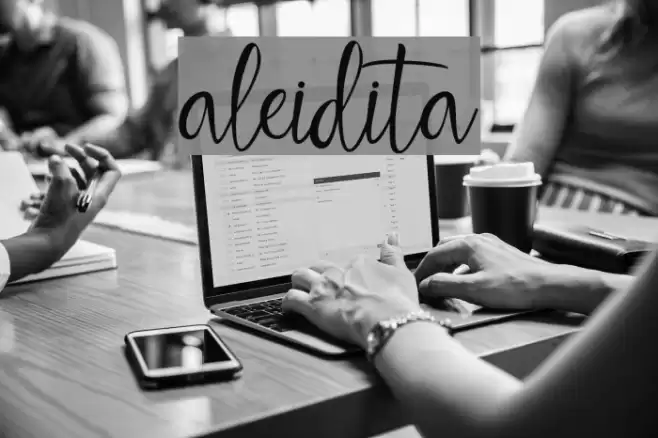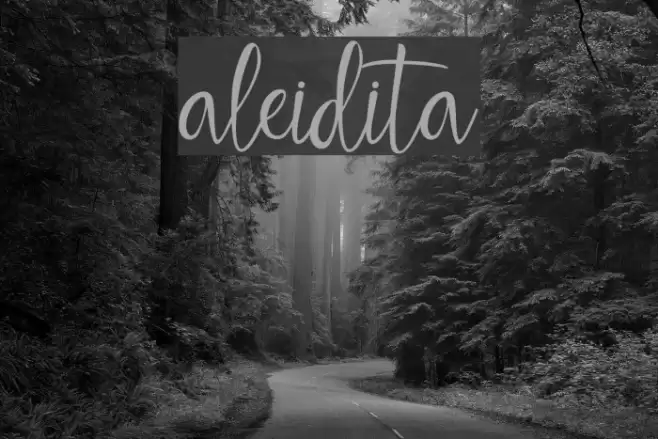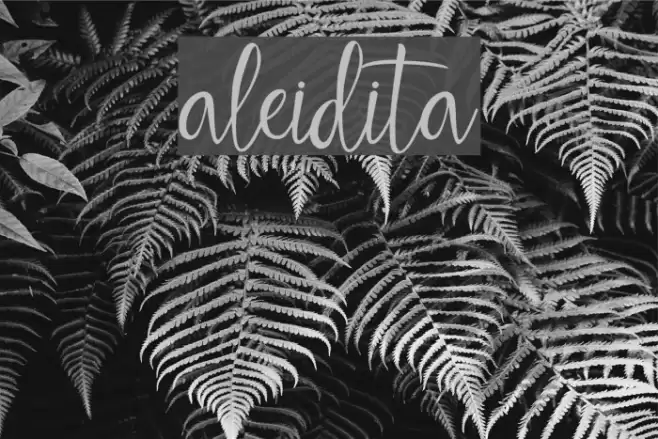
aleidita Font
aleidita Description
This font exudes a playful and whimsical charm with its elegant script style. The uppercase letters feature delicate swirls and flourishes, adding a touch of sophistication and creativity. The lowercase letters maintain a fluid and connected appearance, enhancing the overall flow and readability. Numbers are crafted with the same artistic flair, making them visually appealing. The special characters are uniquely designed, complementing the font's artistic theme. This font is perfect for projects that require a personal, artistic touch, such as invitations, greeting cards, and creative branding.
A whimsical and elegant script font with playful swirls and flourishes from Uncategorized fonts.
- Proposed Projects: Ideal for invitations, greeting cards, artistic branding, and creative projects.